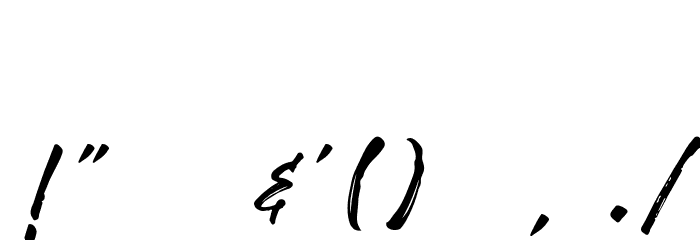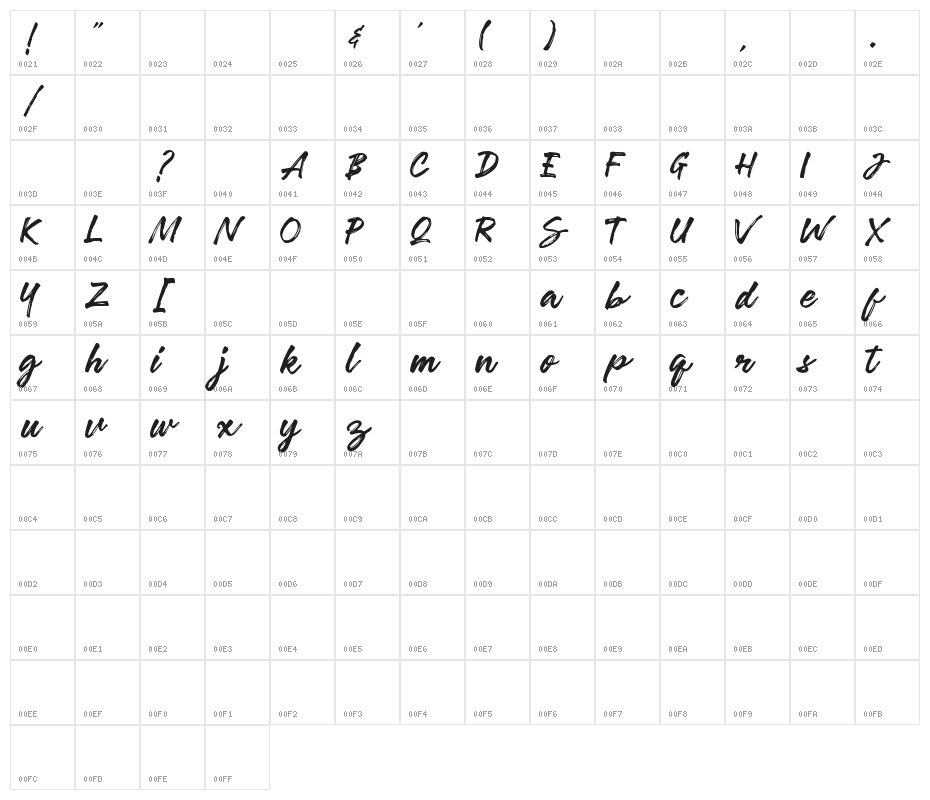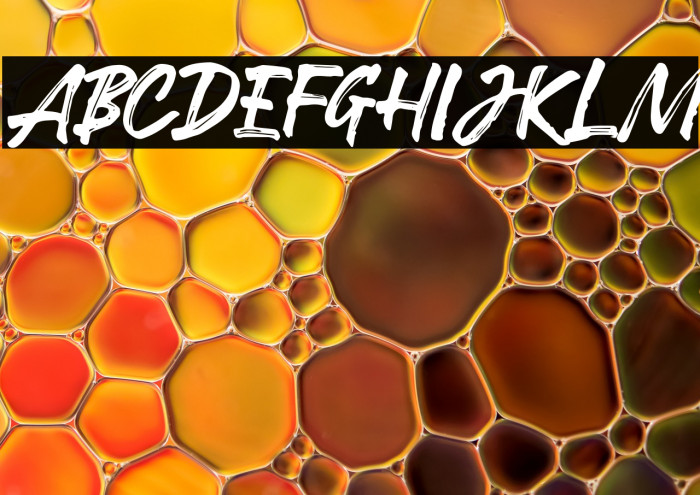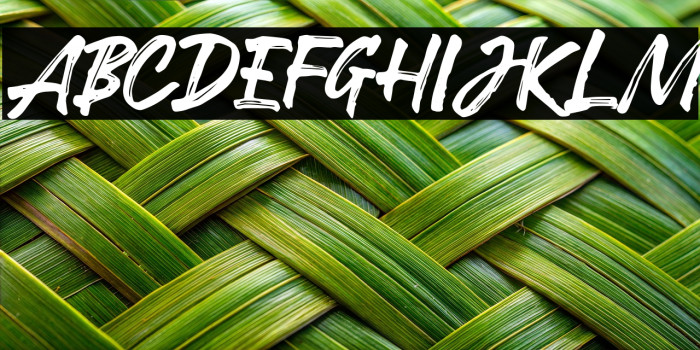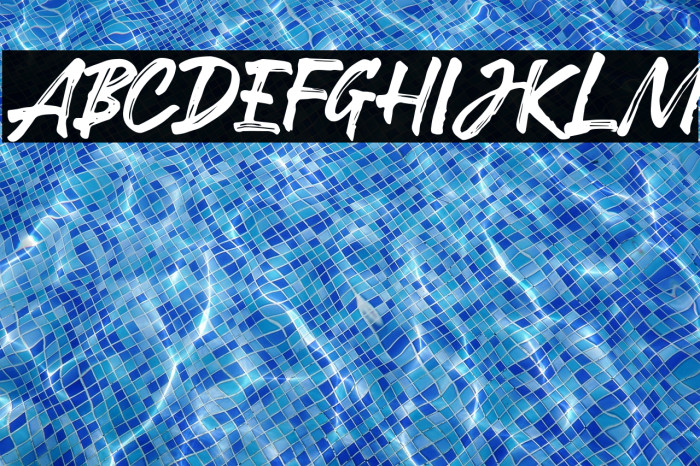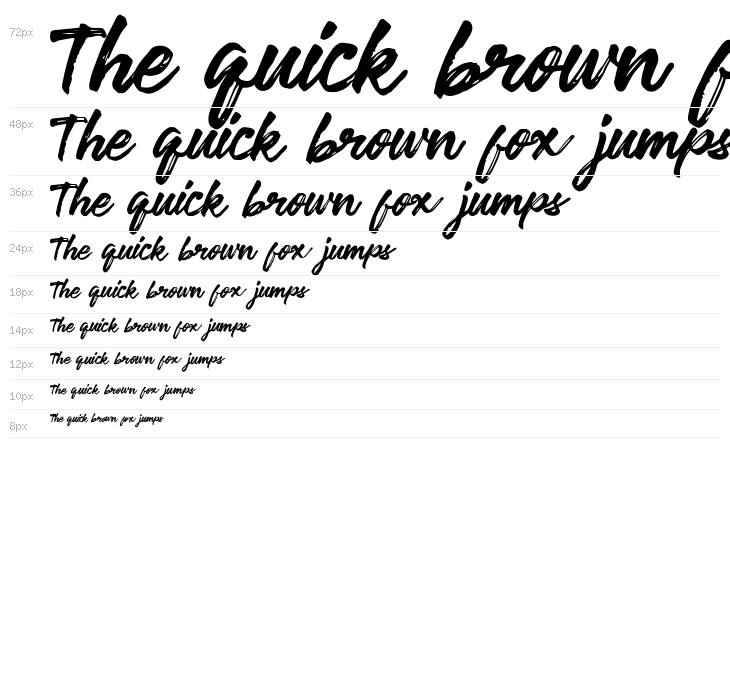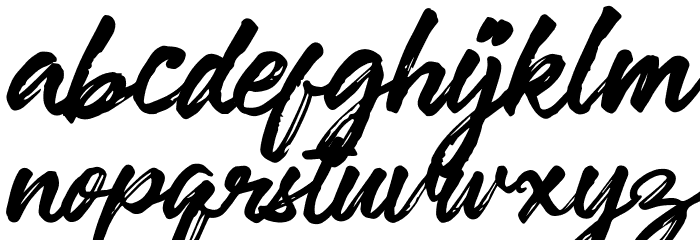
RobustaDemo Font
RobustaDemo Description
This font features a bold, expressive script style with a hand-drawn appearance. The letters are dynamic and fluid, with a noticeable slant that gives a sense of motion and energy. The strokes are thick and varied, creating a high contrast between the thick and thin parts of the letters. This adds to the overall dramatic and artistic feel of the font. The uppercase letters are slightly more structured, while the lowercase letters exhibit more fluidity and variation. The special characters maintain the same energetic style, ensuring consistency throughout the font.